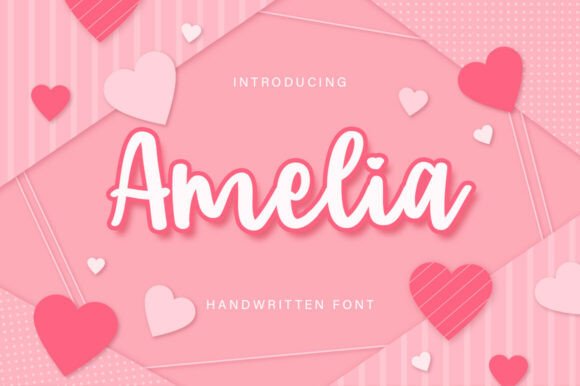
The Sweet Spot: Discovering Amelia Font
I’ll never forget the time I was working on a project for a client’s baby shower invitation. I had the design concept nailed, but something was missing – the perfect font. I scrolled through page after page of Google results, but nothing seemed quite right. That was until I stumbled upon Amelia, a charmingly adorable handwritten font that stole my heart. In this article, I’ll share my love for Amelia, its features, and how to make the most of it in your designs.
First Impressions: What I Love About Amelia
Amelia is more than just a pretty font – it’s a personality in typeface form. Here are a few things that make it stand out:
• ✨ Soft, rounded strokes that give it a friendly feel
• ✅ A gentle, rhythmic flow that’s perfect for reading
• 💕 The delicate heart-shaped title over the ‘i’, which adds a touch of whimsy and romance
• 📝 A clean, legible silhouette that works well for both personal and professional projects
The Not-So-Perfect: Small Quirks and Limitations
While Amelia is an amazing font, it’s not without its quirks. Here are a few things to keep in mind:
• 🤔 It can be a bit too playful for very formal projects, so use it judiciously
• ⚠️ Some of the letters, like the ‘f’ and ‘j’, have a slightly different baseline, which can affect spacing
The Story Behind Amelia
Amelia was designed with love and care by a talented type designer who wanted to create a font that would bring a smile to people’s faces. Inspired by classic handwritten fonts, Amelia combines traditional elements with a modern, playful twist.
What makes Amelia unique? The delicate heart-shaped title over the ‘i’ is a distinctive feature that sets Amelia apart from other fonts.
Is Amelia suitable for body text? While Amelia is a beautiful font, it’s best suited for headings and titles. For body text, you may want to choose a font with better legibility.